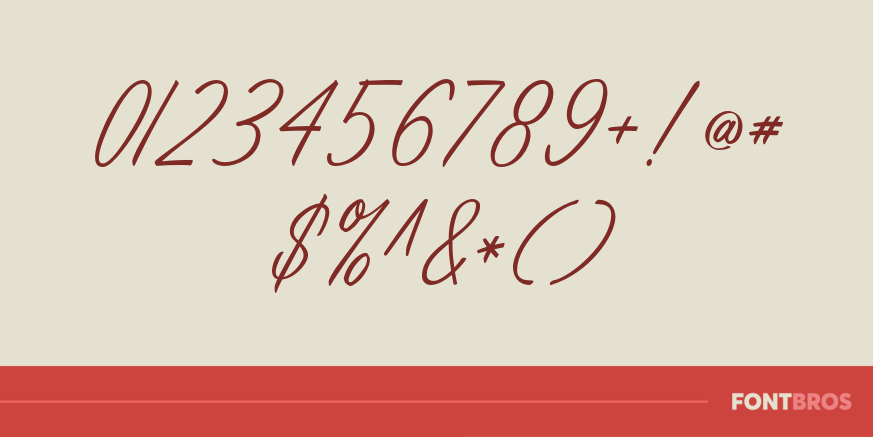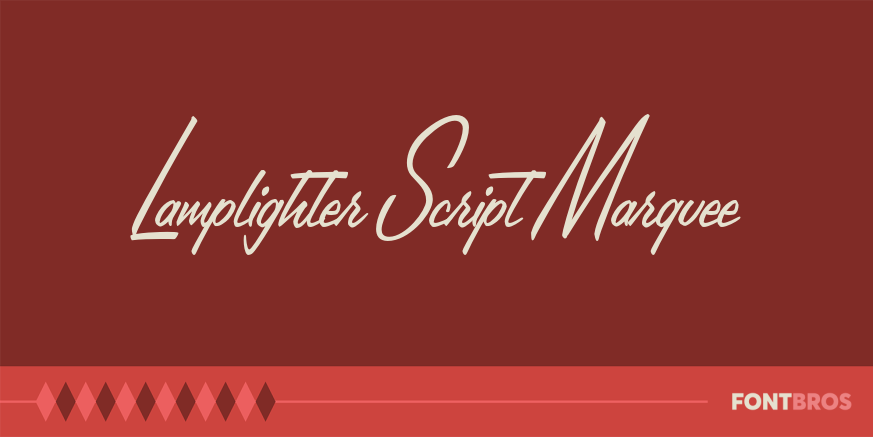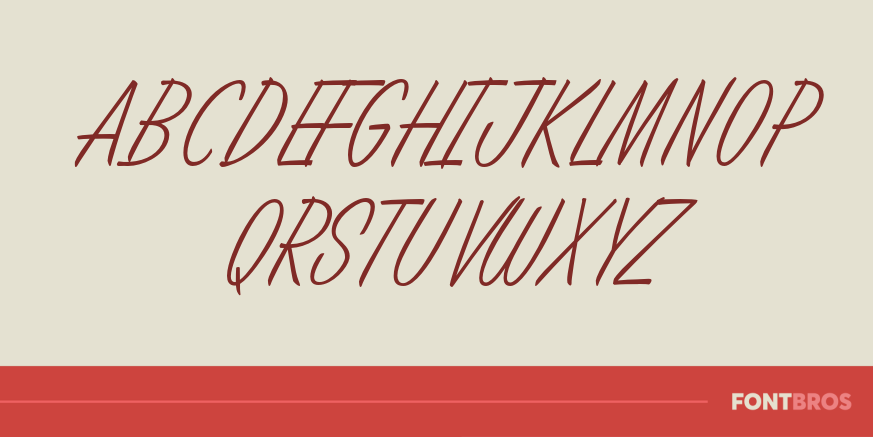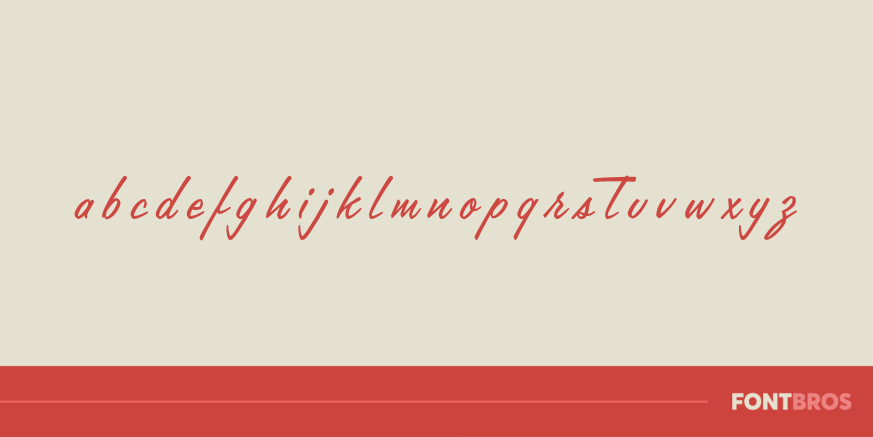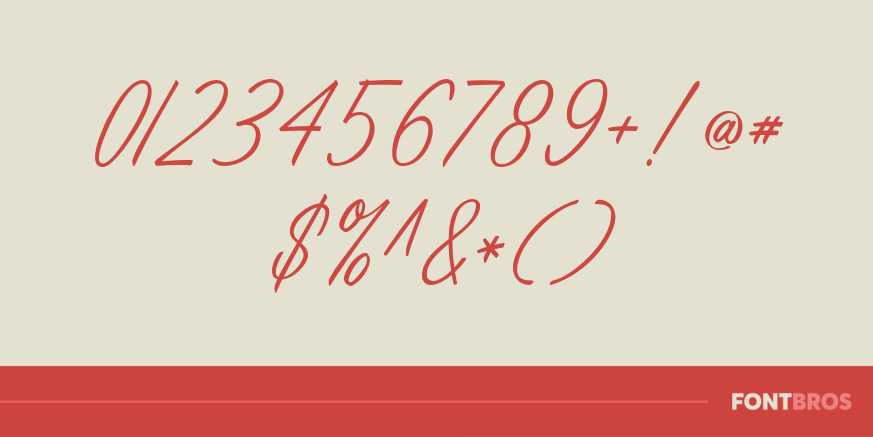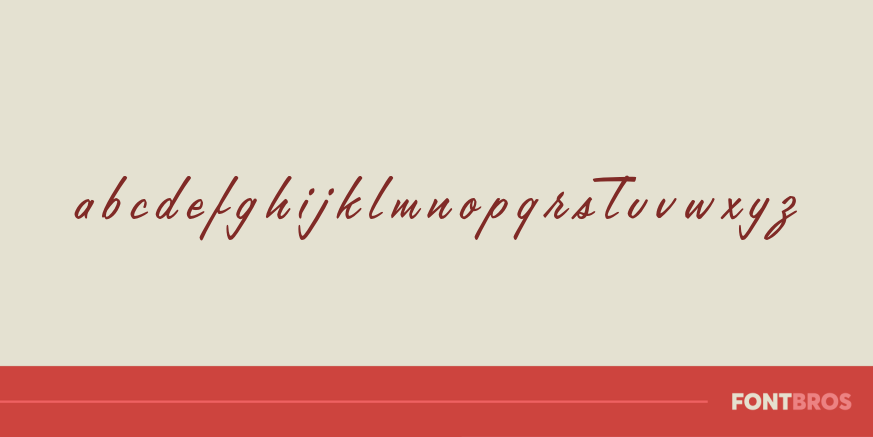
Lamplighter Script Marquee
Font Family by Font Diner
This tall number likes taking in a Rat Pack show at the Sands Hotel and has big old caps so you can see it for miles around!